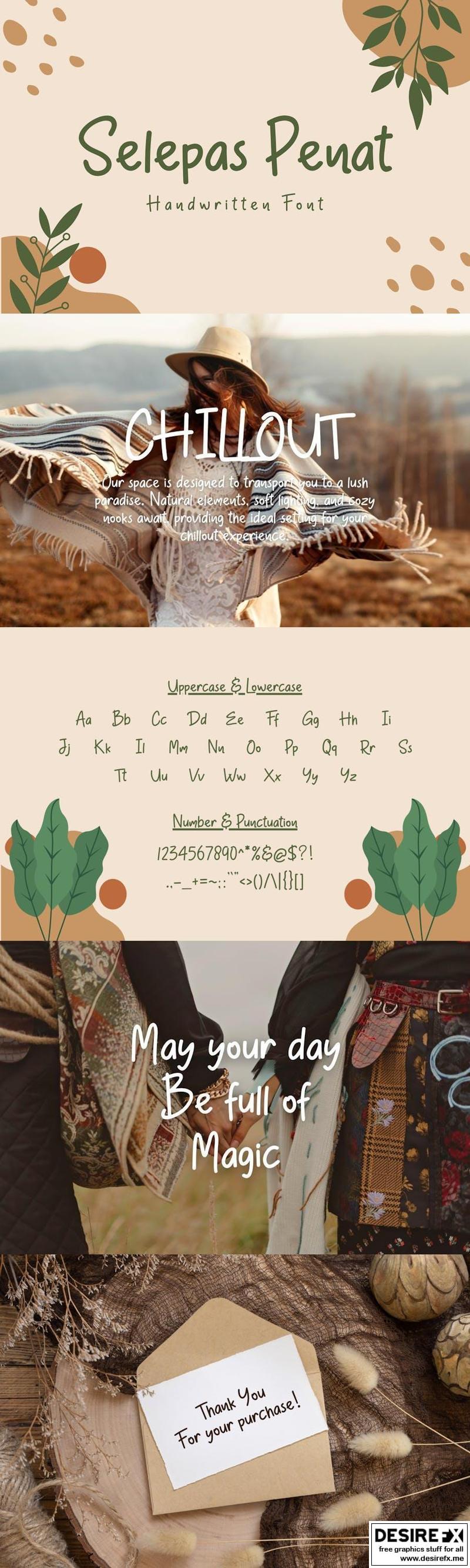
Selepas Penat | Handwritten Font QZ2ZL8L
**Description**
For your creative project, use the Selepas Penat-themed Handwritten font. Handwritten font is appropriate for every kind of design you produce, including greeting cards, posters, logos, and branding.